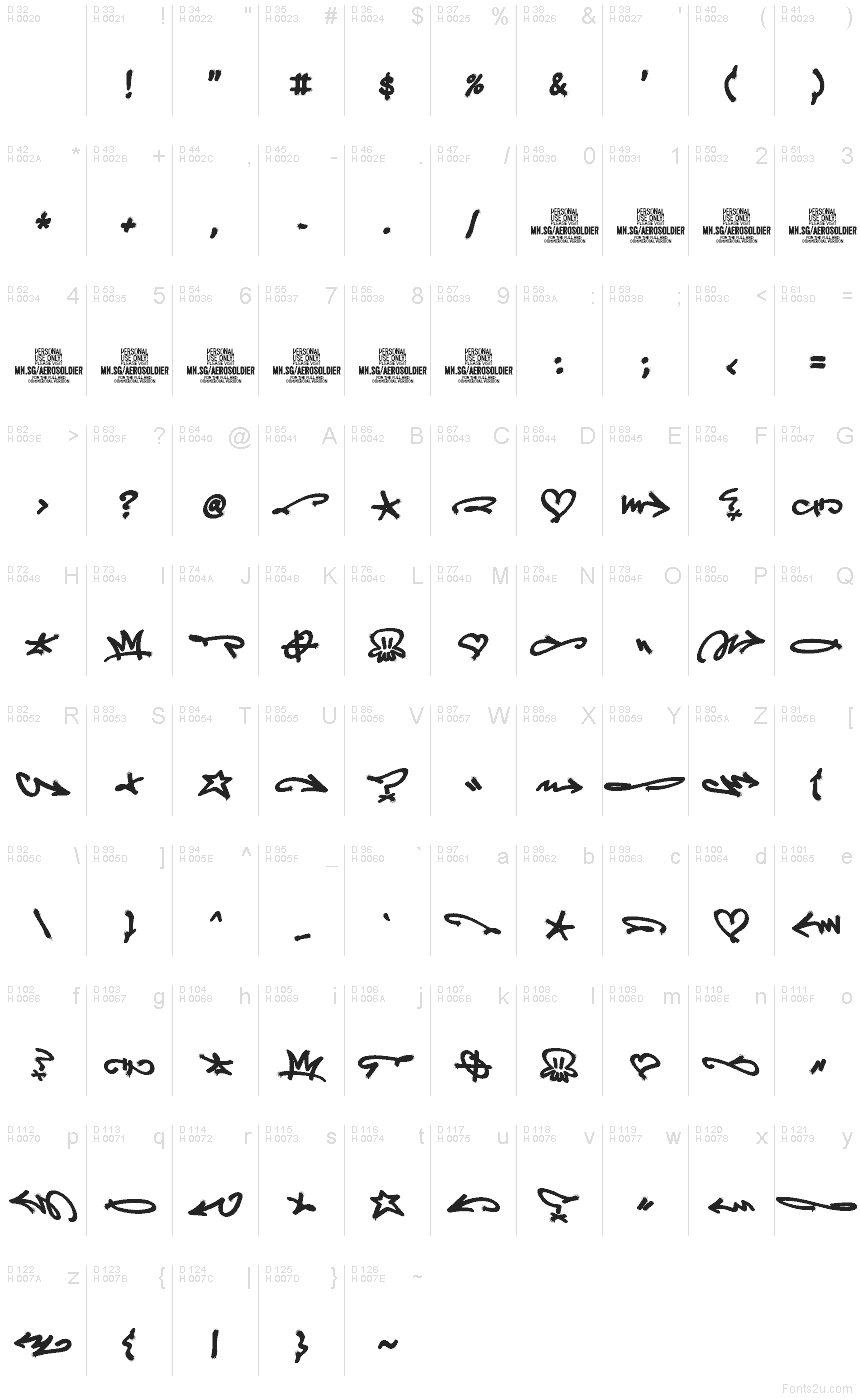
Aerosoldier Symbol font by Mans Greback is a free graffiti dingbats typeface in the Aerosoldier family. Each mark looks spray-canned by hand-bold strokes with fuzzy overspray, swooping swashes, arrows, stars, and hearts that land with inky grit. It drops instant street energy into layouts without resorting to stock clip art or clumsy brushes.
Using Aerosoldier Symbol, you can tag posters, streetwear graphics, album covers, stickers, event flyers, social posts, and skate or sneaker packaging with quick, expressive icons. The generous weight and splatter detail hold up at big sizes, while smaller accents work as dividers or callout cues. Pair these raw symbols with a clean geometric sans to keep the message legible and let the texture do the talking.